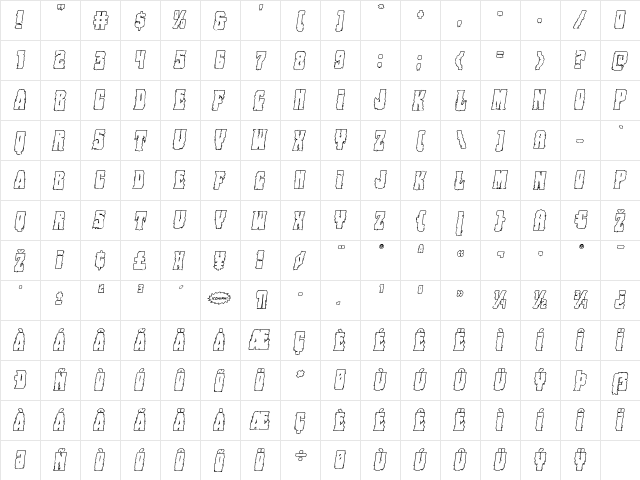
Bog Beast Outline Italic Italic
Design Context for Bog Beast Outline Italic Typeface
Bog Beast Outline Italic is built around its visual character rather than neutral utility — its distinctive forms are designed to make an impression at display sizes. The dynamic lean of this cut emphasises speed and emphasis in any layout.
Font Pairing: Pair with a clean neutral sans-serif for body copy to let Bog Beast Outline Italic's character lead without overwhelming the composition.
Pro Tip: Treat Bog Beast Outline Italic as the centrepiece of your typographic hierarchy. One strong heading set in a decorative face can carry an entire layout.